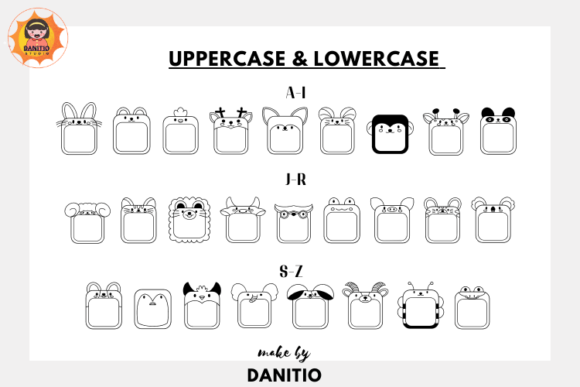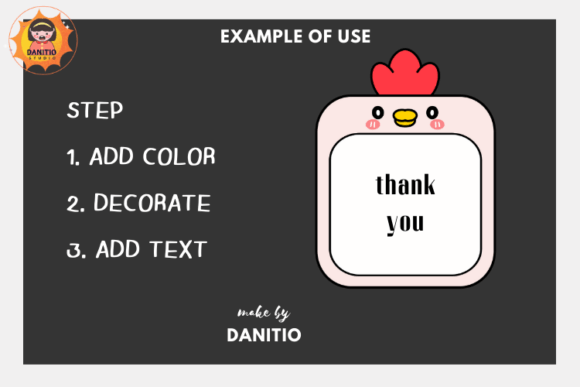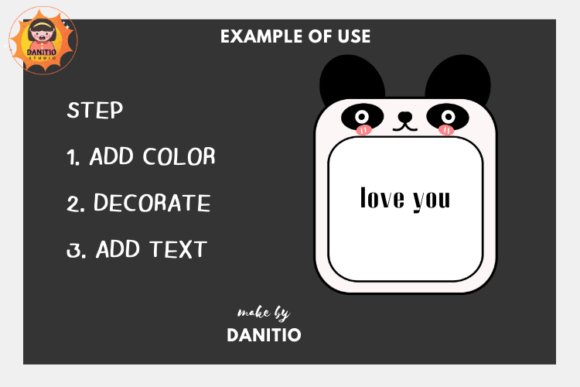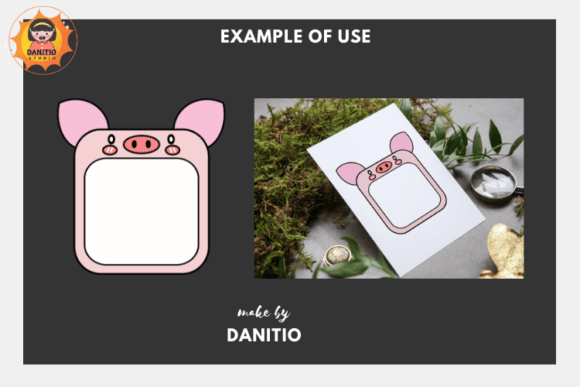
The Cuteness Overload: Discovering the Animals Note Font
I’ll never forget the time I was working on a project for a children’s birthday party, and my client asked me to create a custom design that would make their little ones go wild. I was brainstorming ideas, but something was missing – a font that would bring the whole design together and add that extra dose of cuteness. That’s when I stumbled upon the Animals Note Font, and let me tell you, it was love at first sight! 💕
A Honest Review: The Good, the Bad, and the Cute
What I Love About Animals Note Font
- ✨ A vast variety of adorable animal faces that will make your designs stand out
- ✅ Easy to use and navigate, even for those who aren’t font experts
- 🌈 A range of cuteness levels to suit different design needs and audiences
While I absolutely adore the Animals Note Font, there are a few minor things to keep in mind:
- ⚠️ Some characters might be a bit too playful for very formal designs
- 🤔 Limited language support, but that’s to be expected with a Dingbats font
Rumor has it that the creator of Animals Note Font was inspired by their own childhood love of animal illustrations and cartoons. As a designer and animal enthusiast, they wanted to bring a touch of whimsy and fun to the world of typography. And so, the Animals Note Font was born – a delightful collection of animal faces that can add a dash of personality to any design.
A: Animals Note Font is perfect for designs that require a playful and cute touch, such as children’s party invitations, greeting cards, t-shirts, and more.
A: As a Dingbats font, Animals Note Font has limited language support. However, it’s perfect for designs that focus on visual elements rather than text.